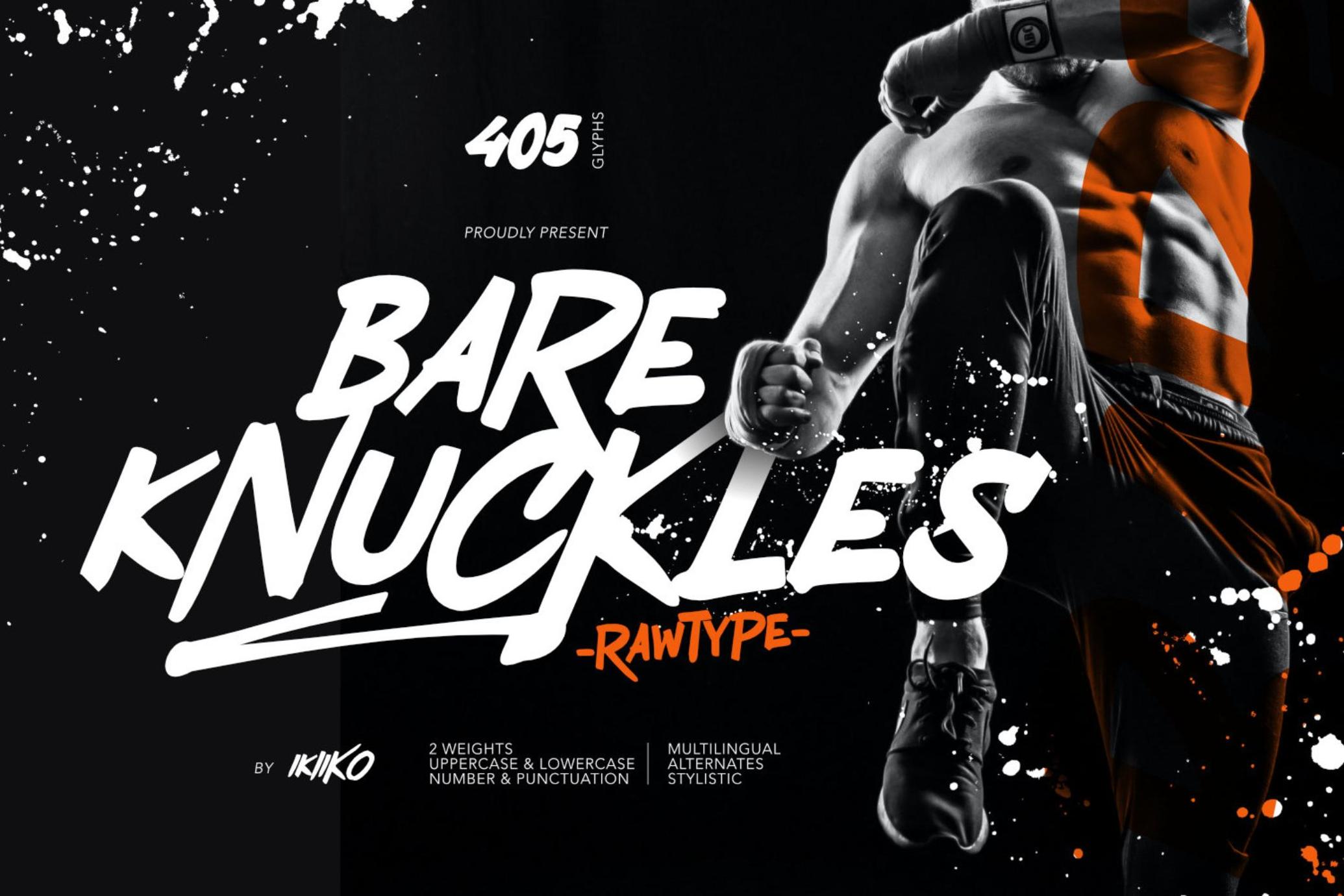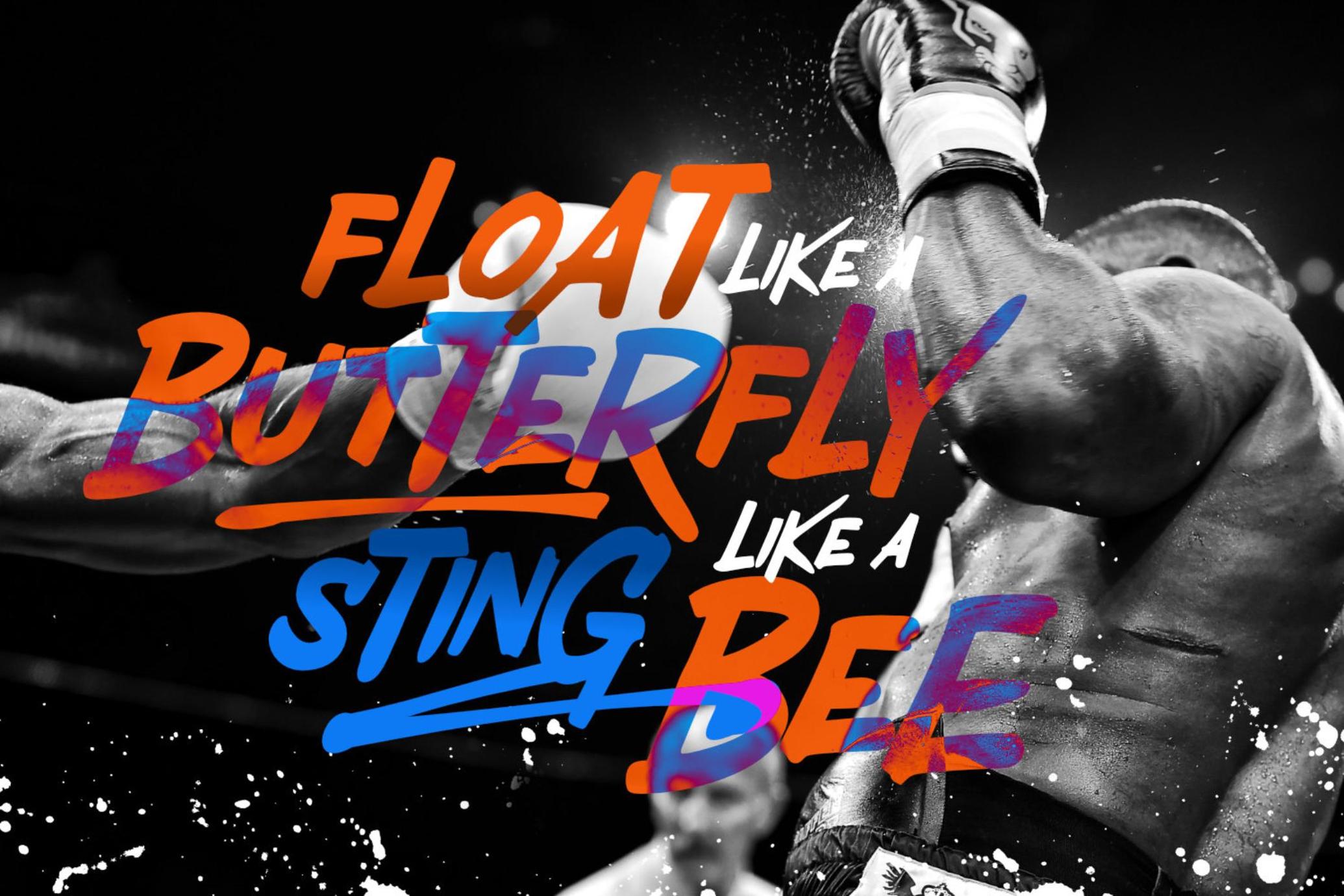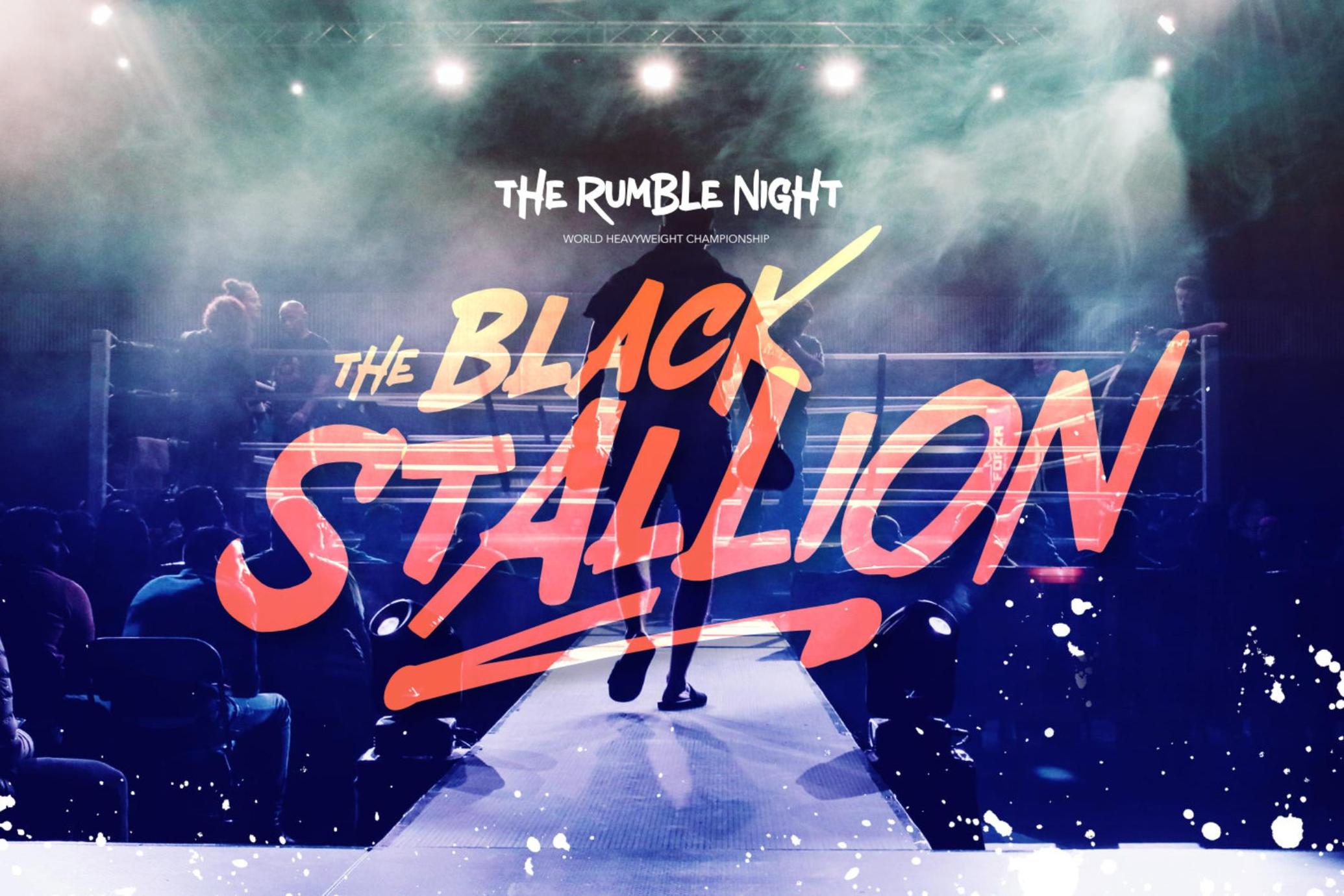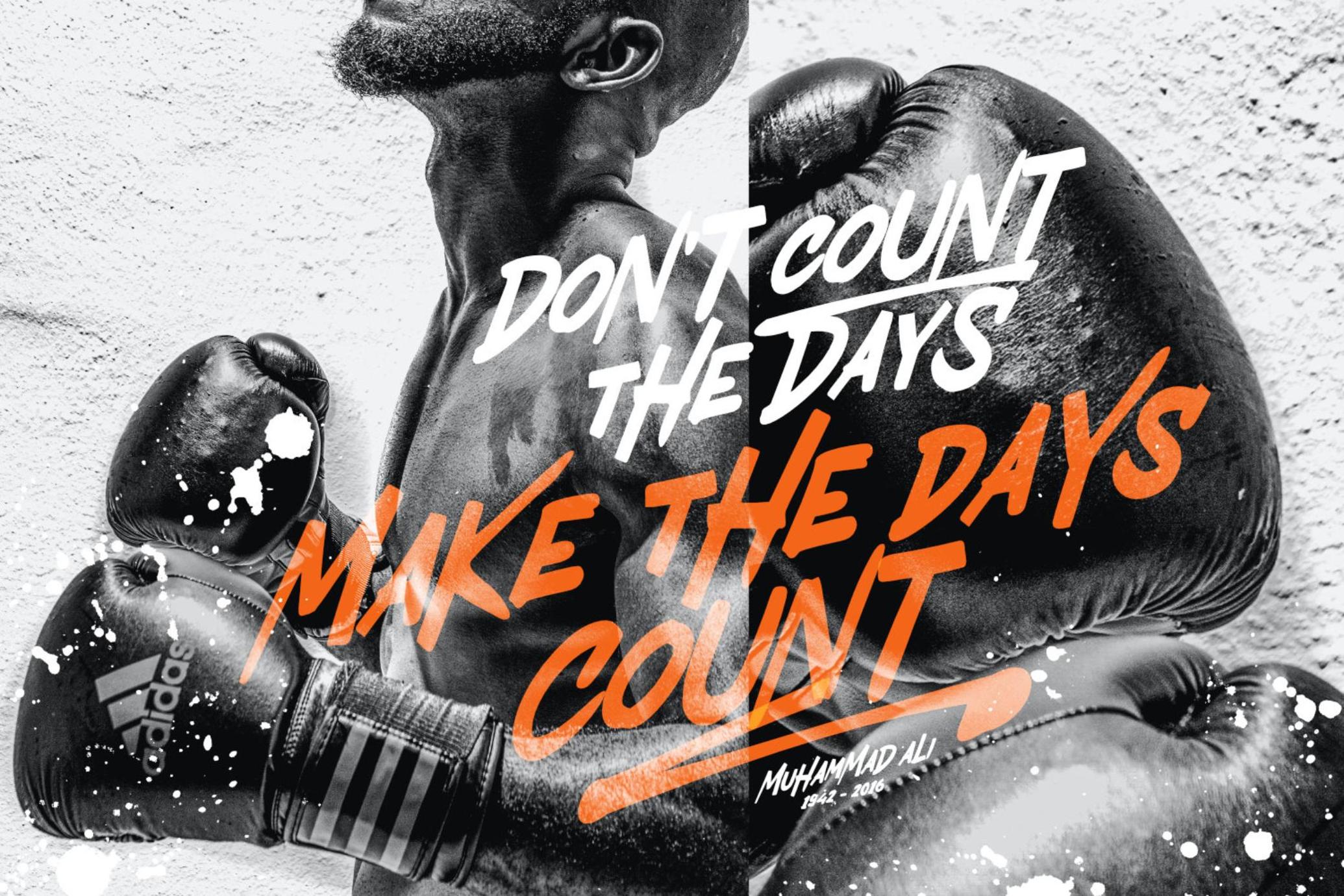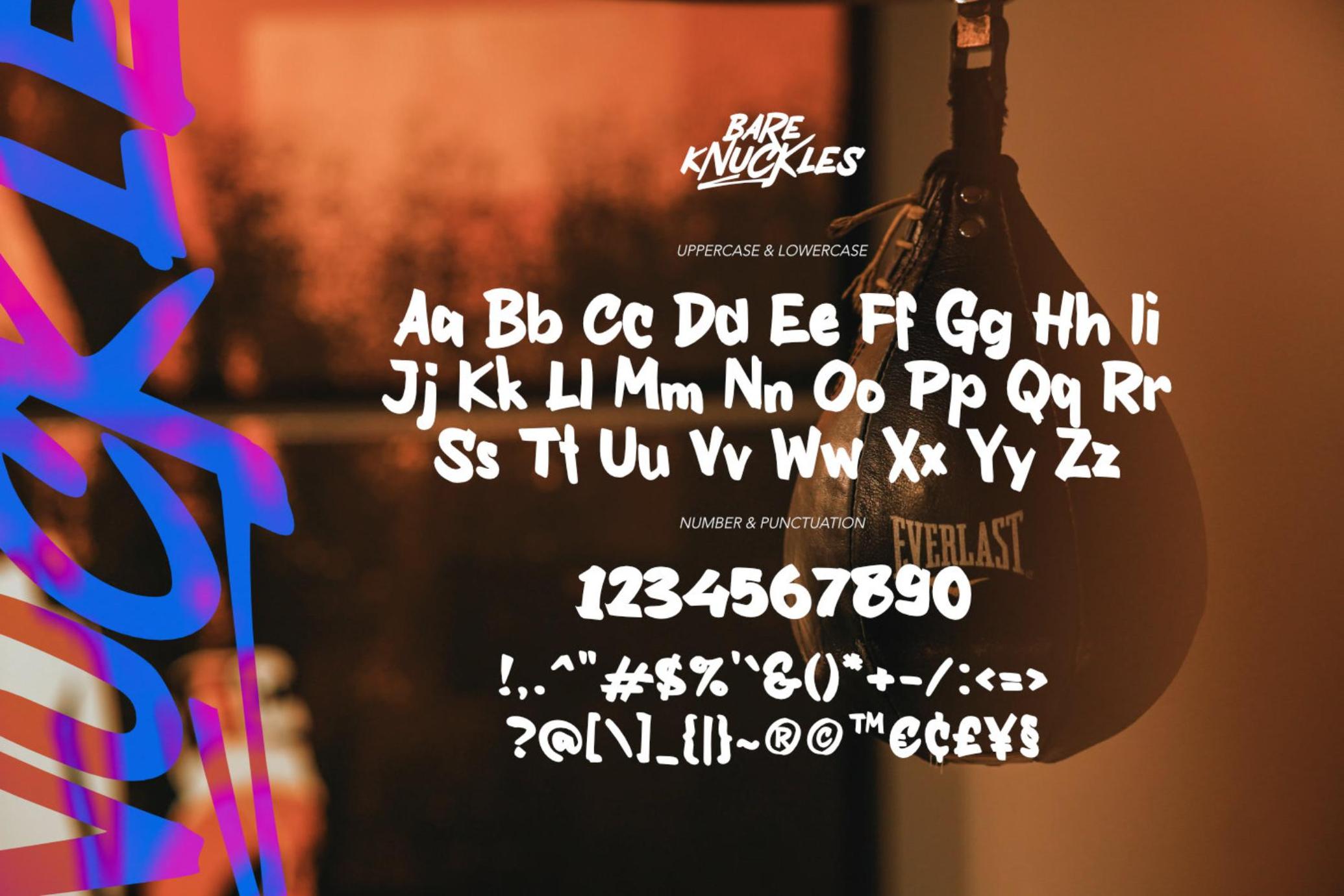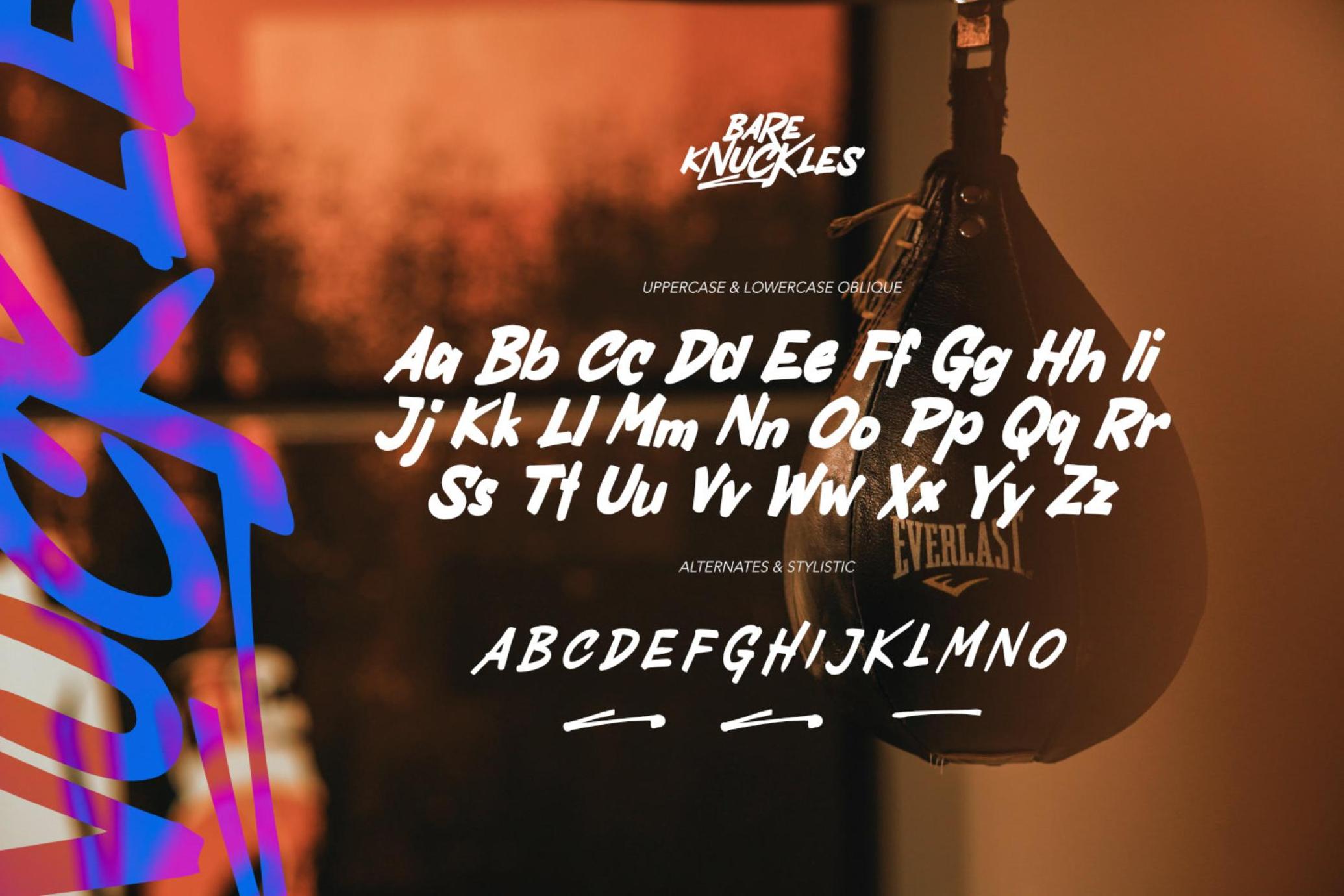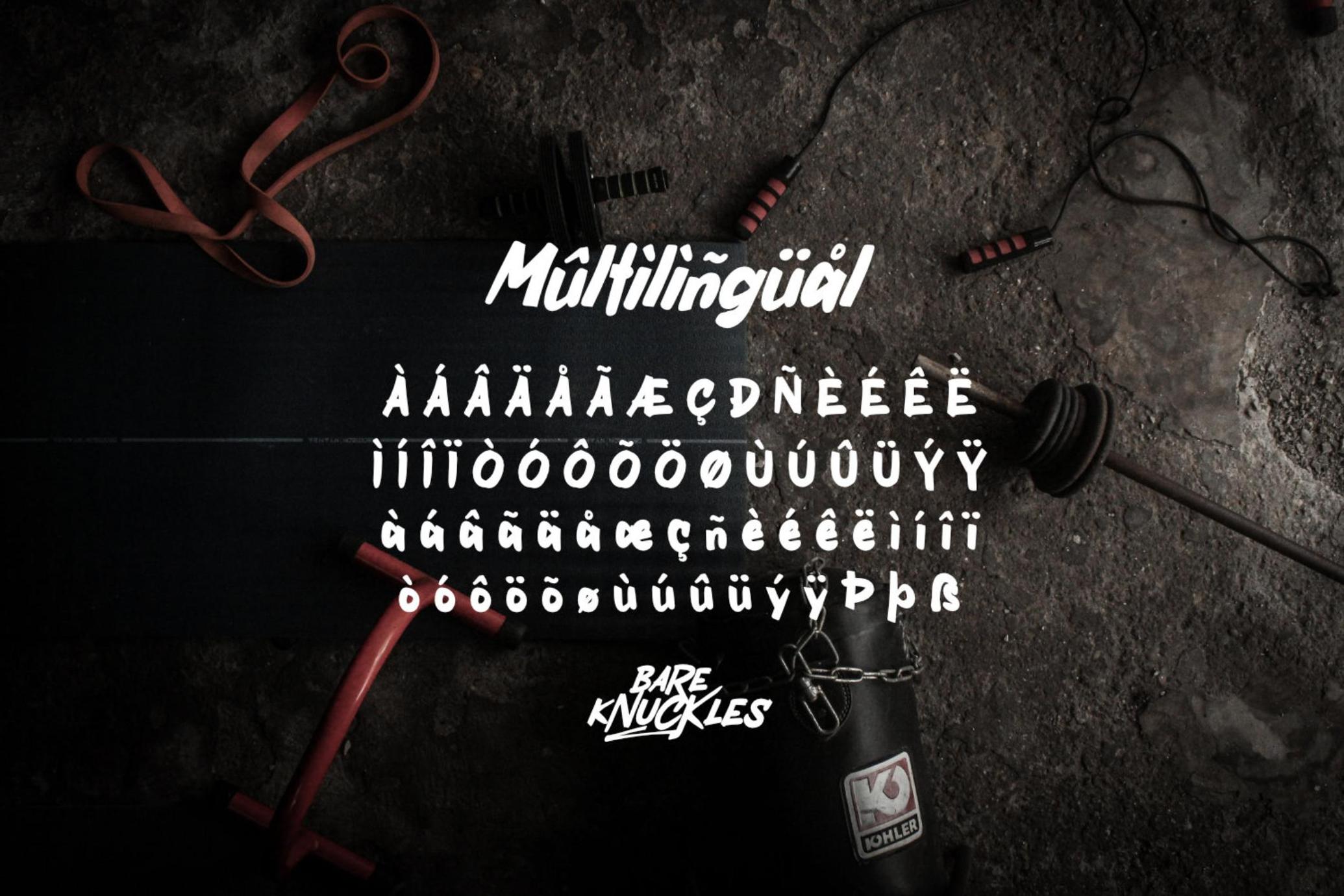
Bare Knuckles - Raw Font
Bare Knuckles is a raw and expressive brush font with a touch of street style. This type has a freestyle shape with a bold lines characterize this font. This typeface is perfect for an extreme sport event, poster, flyer, magazine cover, streetwear brand, fashion youth, quotes, or stylish text overlay to any background image.
• Number & Punctuation
• Alternates & Stylistic